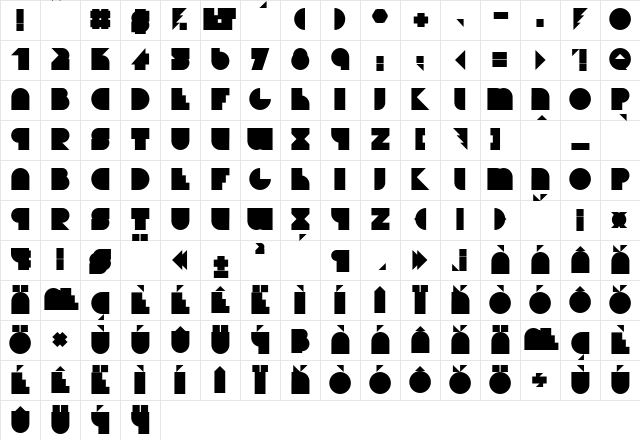
Bifurk Regular Free Font
Bifurk Regular
Designer: gragoury
Complete Bifurk Regular glyph index. Displaying only characters natively supported by Bifurk Regular font.
Design Context for Bifurk
Bifurk is a composed and adaptable typeface that performs quietly and consistently across a wide range of design contexts.